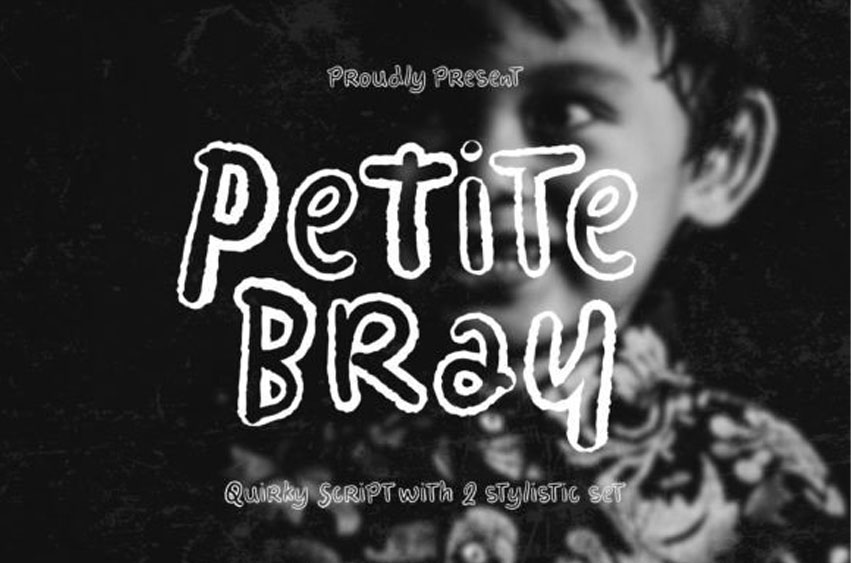
Petite Bray Font
Petite Bray Font is a charming and playful script with a touch of whimsy.
Its small, quirky letters dance across the page, giving any project a unique and lively feel. Perfect for adding a bit of fun and personality to your designs!